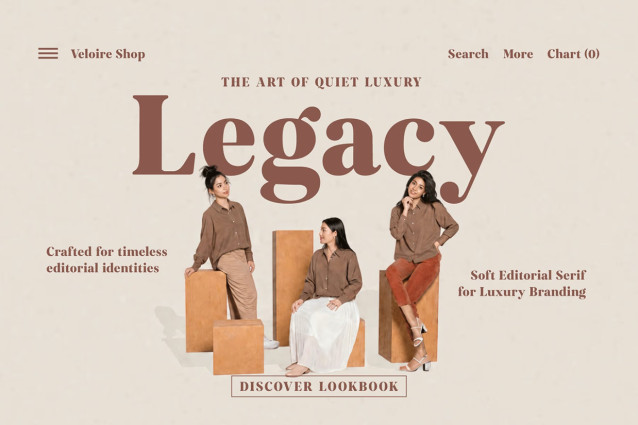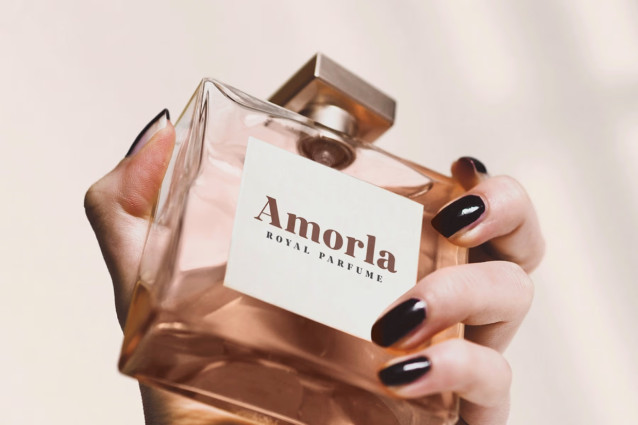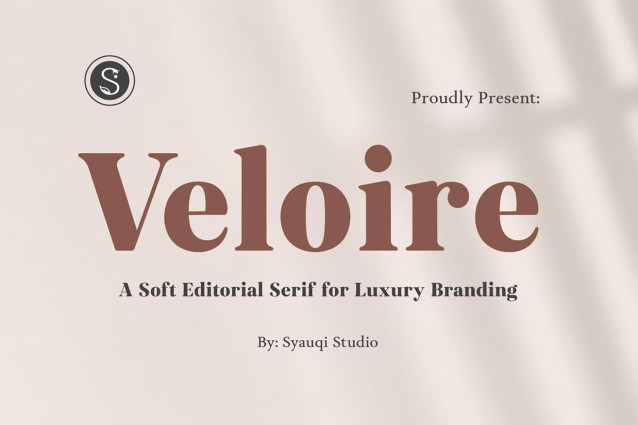
Veloire is a refined soft editorial serif typeface that blends timeless elegance with a modern, approachable character. Designed for brands that value sophistication and authenticity, Veloire brings effortless luxury to every design, from premium branding to editorial layouts.
Whether you’re crafting a fashion identity, designing luxury packaging, creating magazine headlines, or building an elegant brand, Veloire delivers a distinctive editorial aesthetic that stands out with confidence.
Perfect for Luxury Branding, Fashion & Beauty Brands, Editorial Design, Magazine Headlines, Logo Design, Boutique & Lifestyle Brands, Perfume & Cosmetic Packaging, Jewelry Branding, Product Packaging, etc.
Veloire is more than just a serif, it is a typeface designed to tell sophisticated stories and help brands create lasting first impressions.